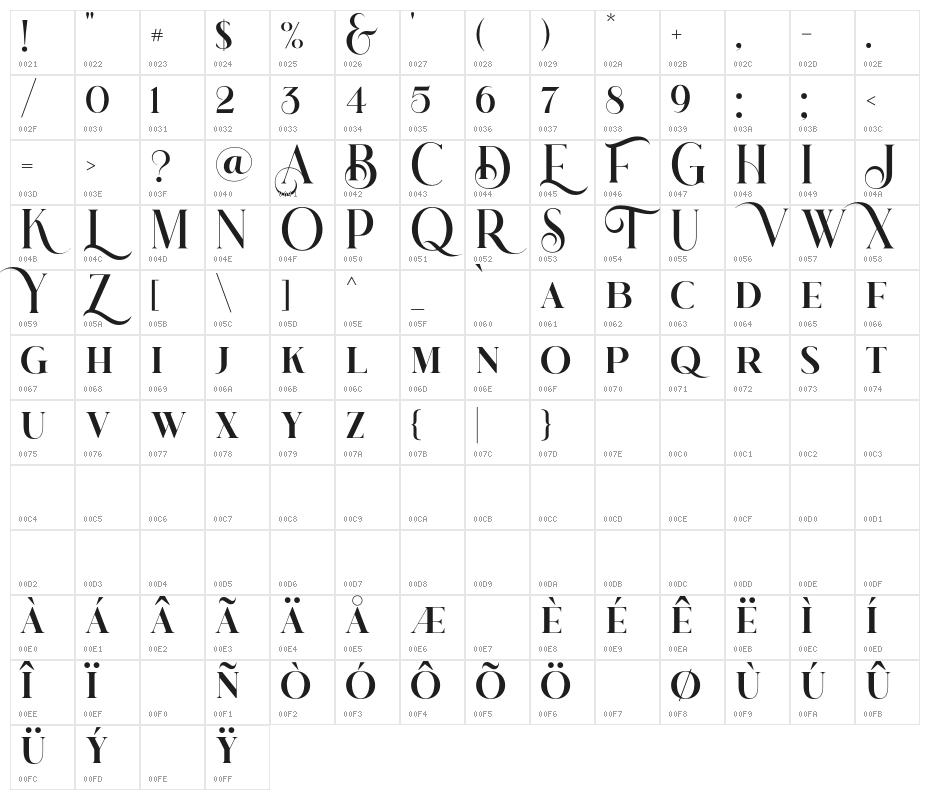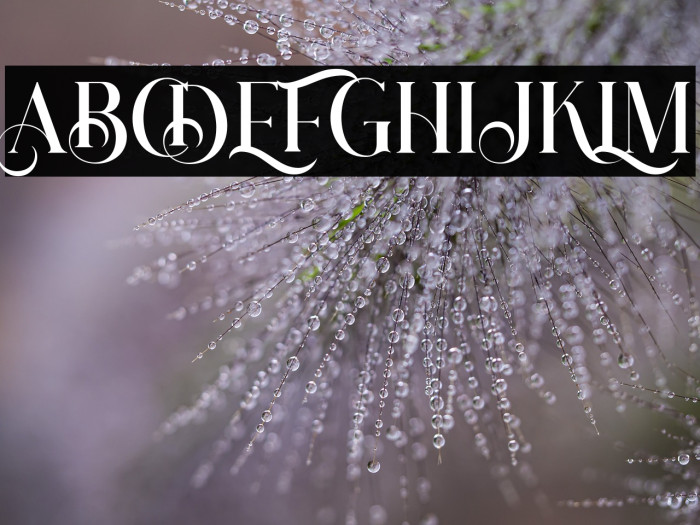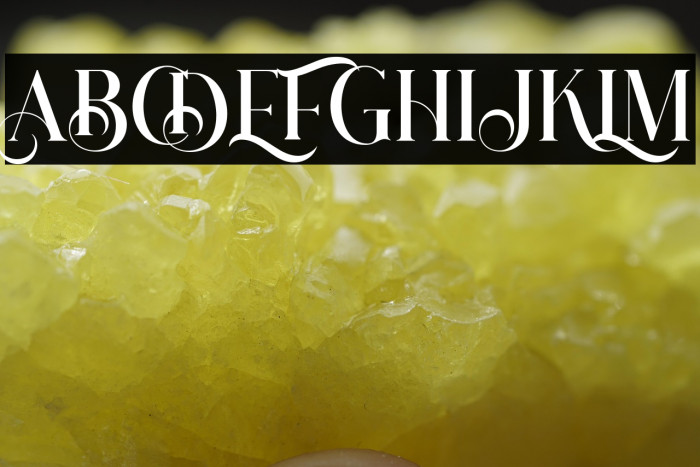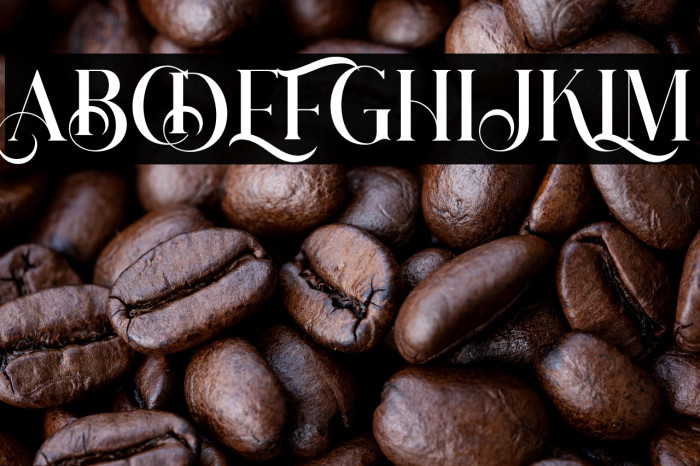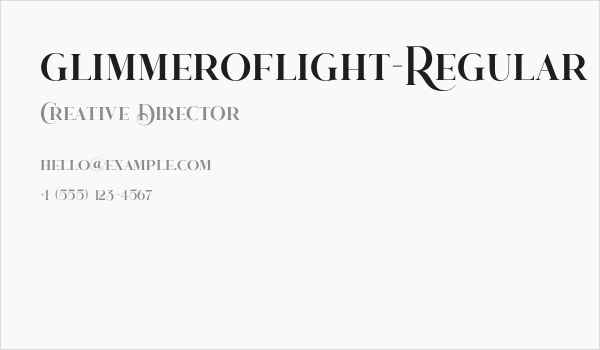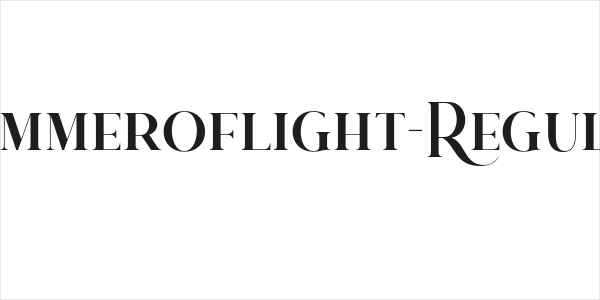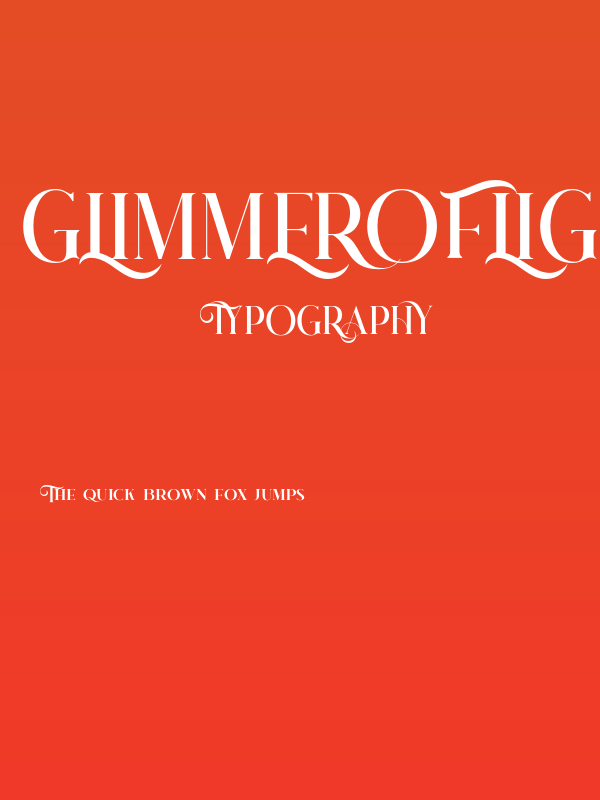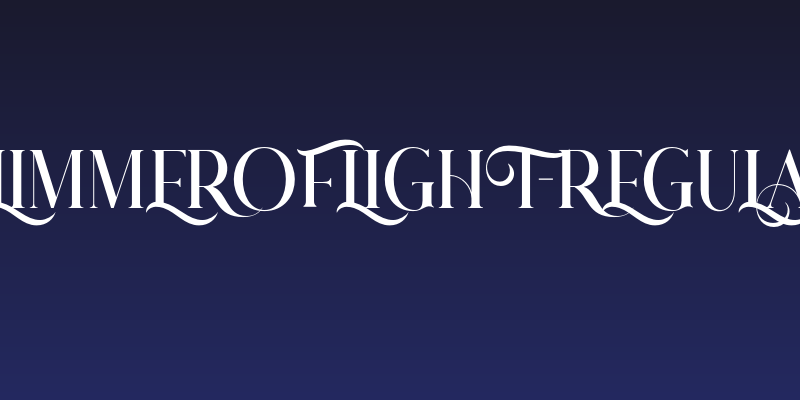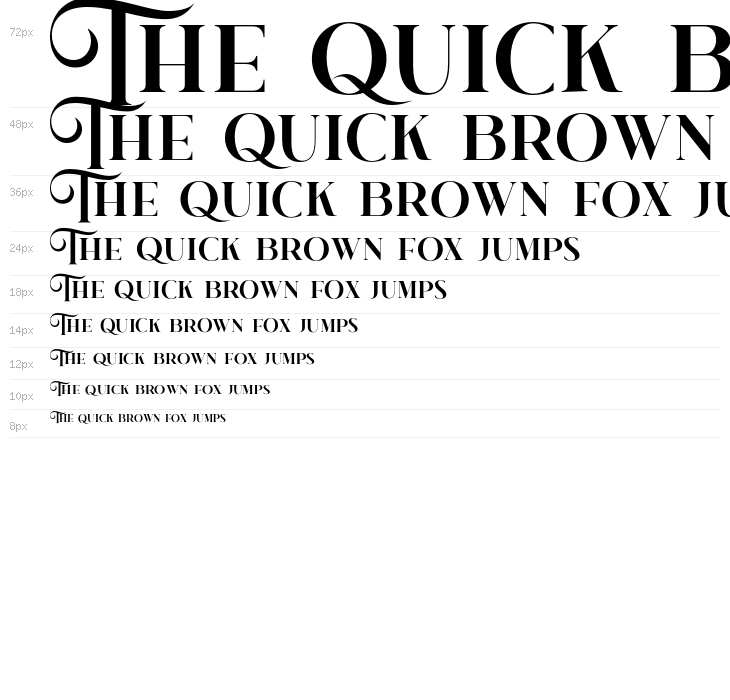
glimmeroflight-Regular Font
This font features a sophisticated and elegant design with a blend of classic and modern elements. The uppercase letters are adorned with intricate swashes and flourishes, giving them a decorative and artistic flair. The lowercase letters maintain a more traditional serif style, providing a nice contrast to the ornate capitals. The numerals are stylishly curved, maintaining the overall aesthetic of elegance. Special characters are uniquely designed, adding to the font's versatility. This font is perfect for projects that require a touch of sophistication and creativity.
| Proposed Projects | Ideal for wedding invitations, luxury branding, editorial design, and high-end product packaging. |